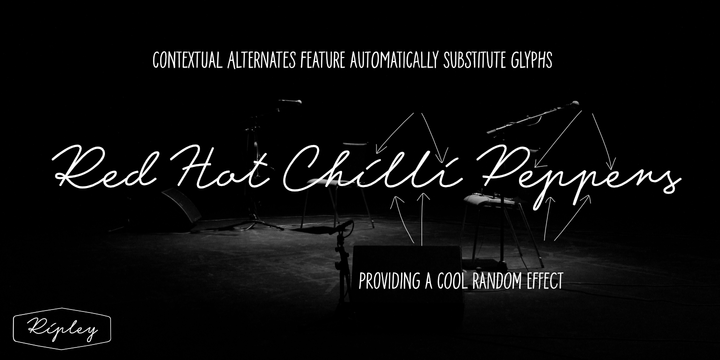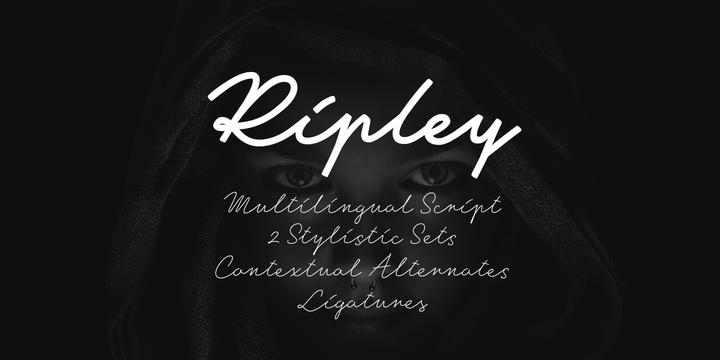
Ripley Script Font
Ripley is a handwritten fully connected script with ligatures and contextual alternates to help with flow and readability.
| Classification: | Handwritten Fonts, Script Fonts |